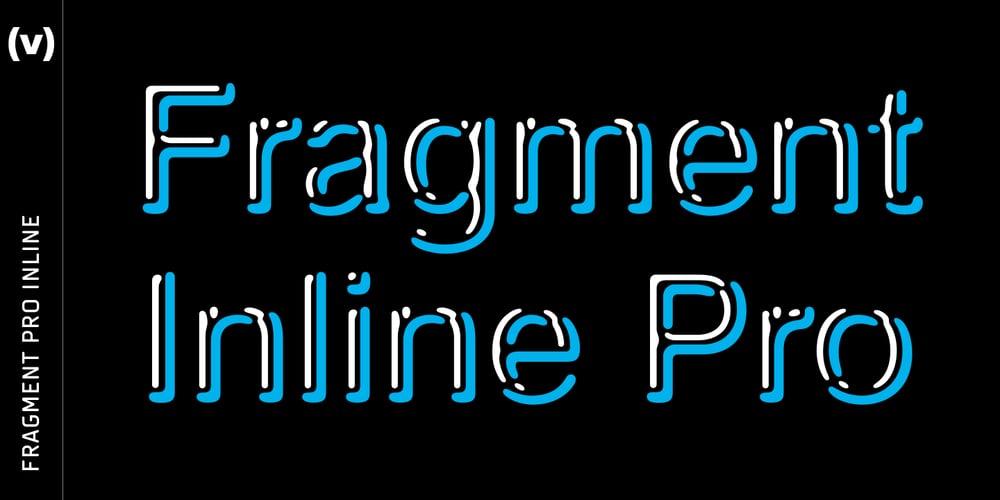
Fragment Pro Inline
Fragment Pro Inline font
Fragment Pro Inline Font Family was designed by Vít Šmejkal and published by (v) design. Fragment Pro Inline contains 3 styles and family package options. Fragment Pro Inline is a part of a larger OpenType font family (see also Fragment Pro). It is an elegant, soft and decorative typeface built on classical proportions. Its outlines have been carefuly crafted with a high attention to detail, so it could be used even at very large sizes. Fragment is a layered typeface – you can either use the standalone version of Fragment Inline or combine its two layers (Lit and Shadow) to achieve various color effects. It is not recommended to use “inline” layers separately. Instead, choose the separately sold Fragment Pro, which has been significantly optimized for standalone use. Fragment has been conceived to be used as a display typeface in publications, titles, logotypes etc., but it is surprisingly legible even in smaller print sizes. Thanks to its strictly onefold oulines, Fragment can be also used as a stencil typeface. Fragment supports many OpenType features and offers great multilingual support for most of the Latin-based languages. Feel free to download the detailed PDF Specimen.